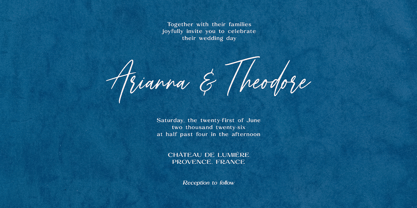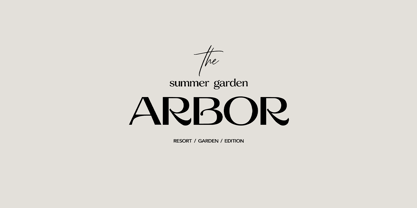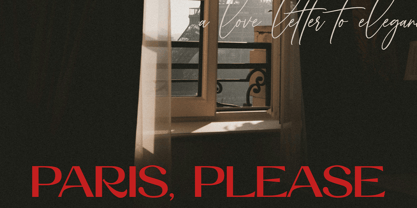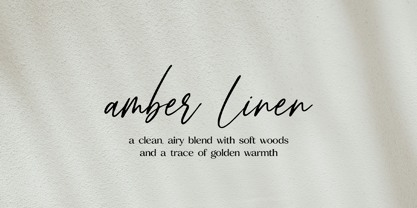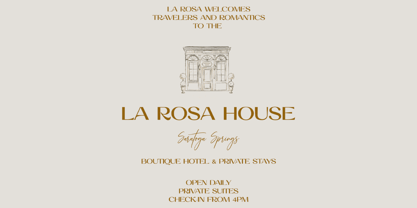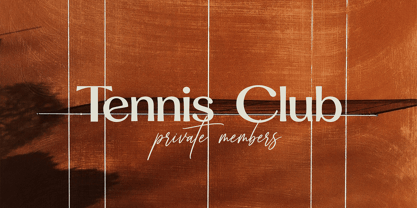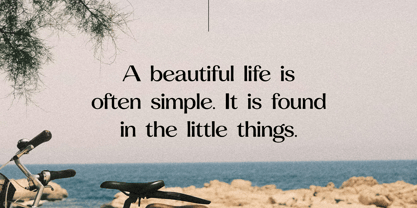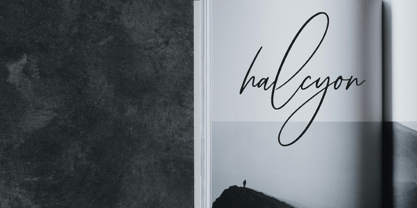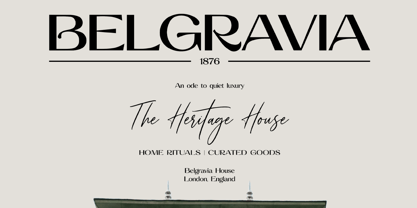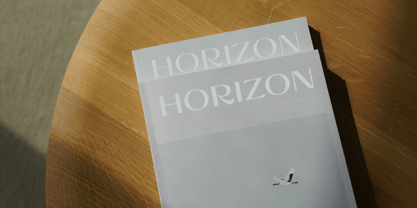
Bastide Celestine
by Elvina Studio
The Bastide Celestine Font Family was designed by Elvina Gafarova and published by Elvina Studio. Bastide Celestine contains 2 styles and family package options. More about this family
Bastide Celestine is a chic font duo featuring an elegant serif and a graceful script. Perfect for branding, logos, packaging, wedding stationery, editorials, social media, and beautiful visual identities. Language Support: English, French, German, Spanish, Portuguese, Italian, Dutch, Danish, Norwegian, Swedish, Finnish, Icelandic, Irish, Scottish Gaelic, Welsh, Faroese, Estonian, Albanian, Catalan, Galician, Luxembourgish, Basque, and Afrikaans.